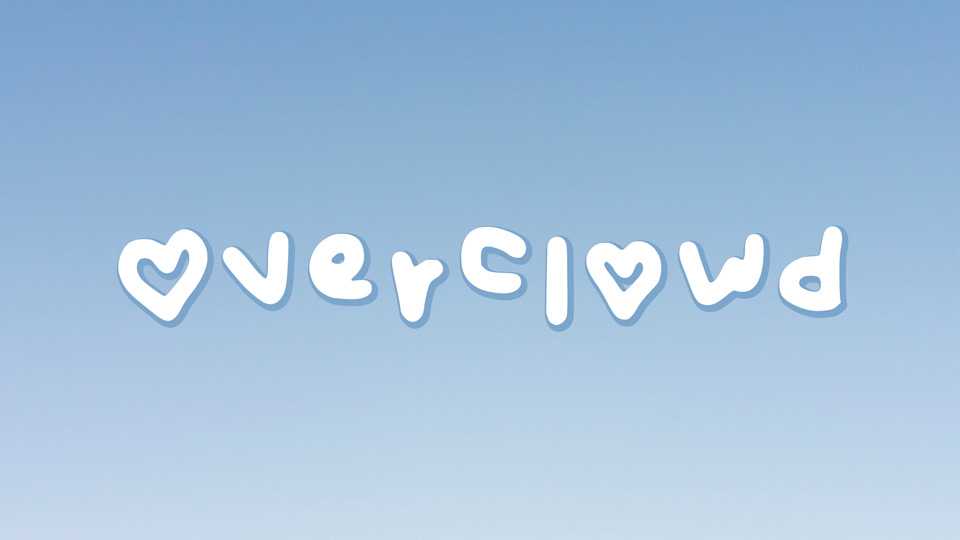
Download Owerclowd font, a fun, sweet and cute hand lettered typeface. Owerclowd is perfect for crafts, flyers, greeting cards, product packaging, printed quotes, apparel design, album covers, etc.